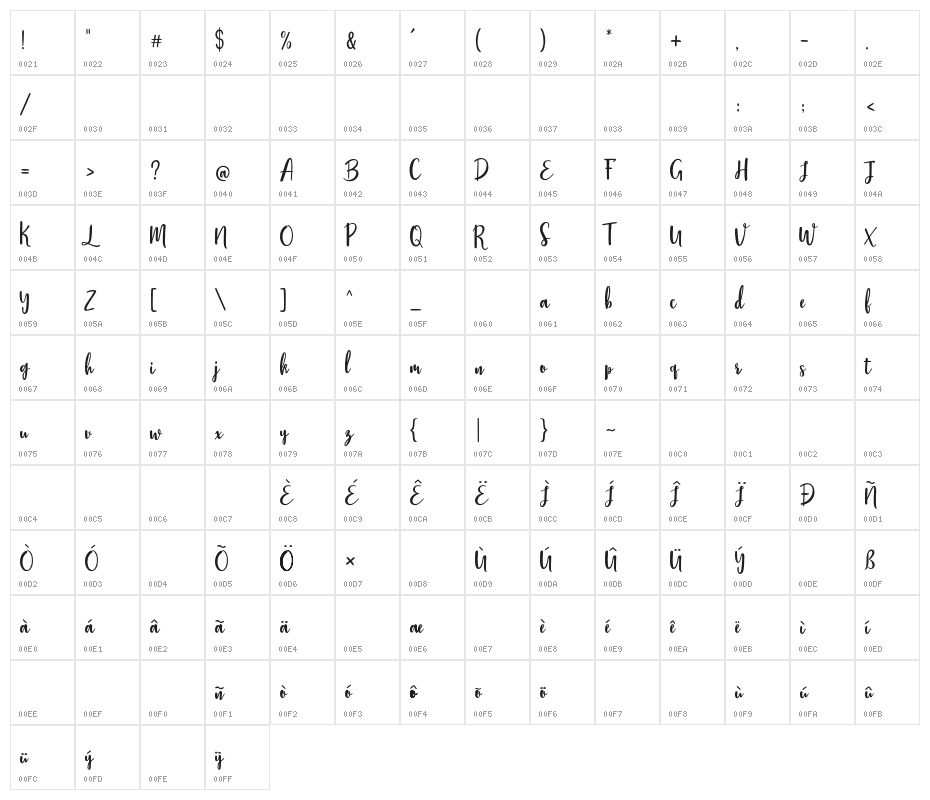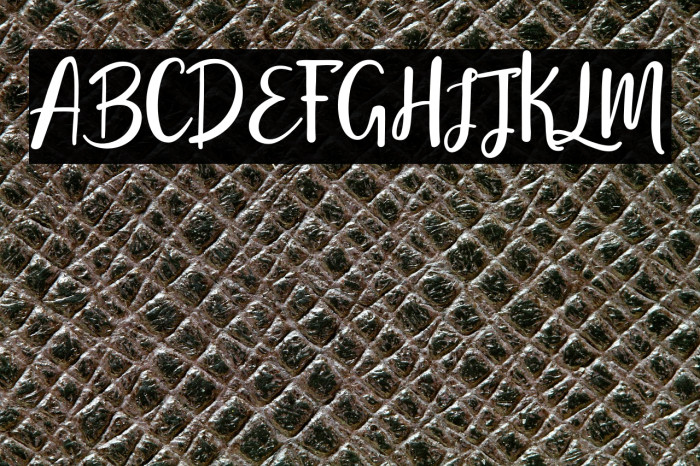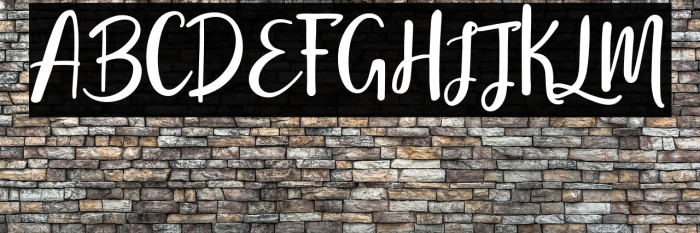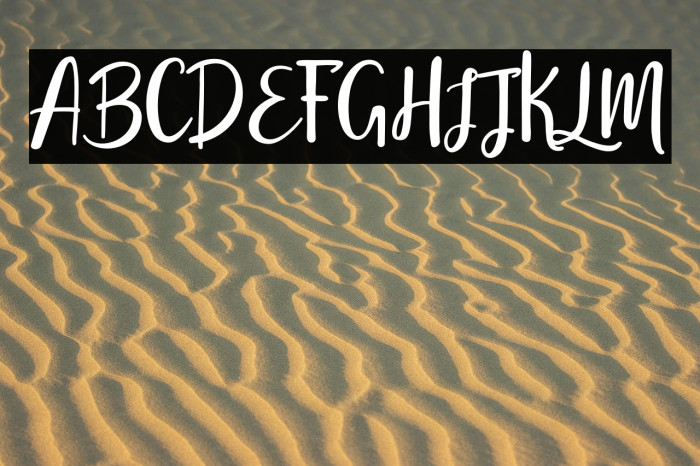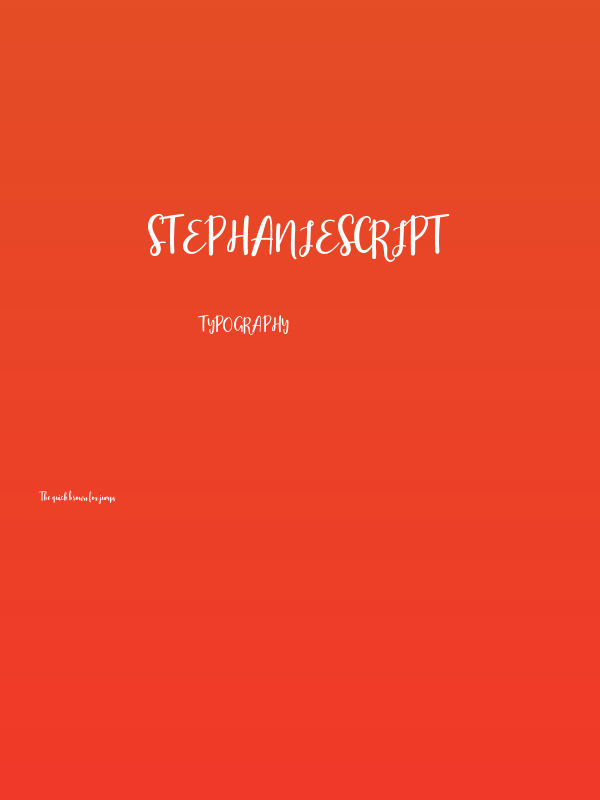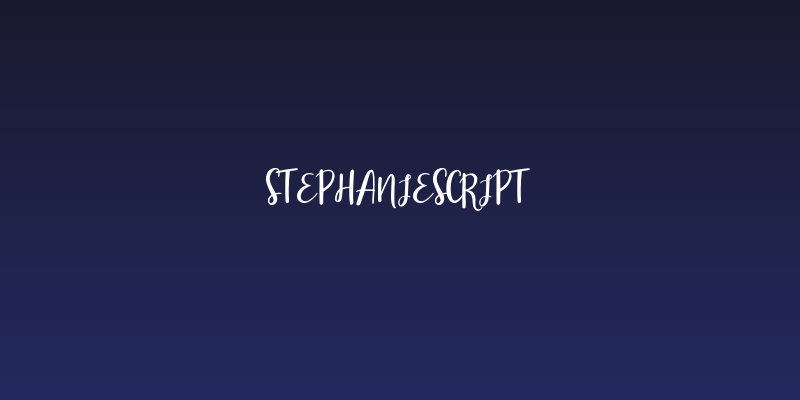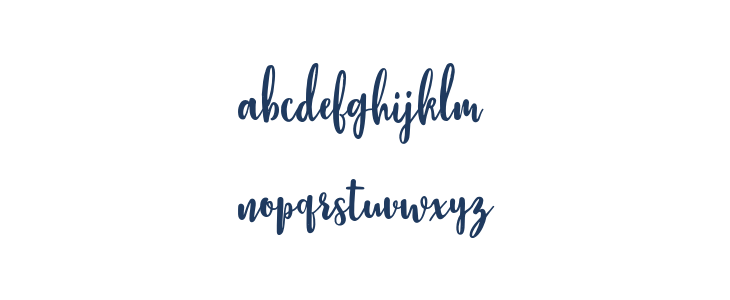
StephanieScript Font
StephanieScript Description
This font features a lively and flowing script style, characterized by its elegant and cursive letterforms. The uppercase letters are bold and slightly slanted, with a playful yet sophisticated appearance. The lowercase letters maintain a consistent flow, with smooth curves and loops that enhance its handwritten aesthetic. The font includes a range of special characters, adding versatility to its use. Its overall design exudes a sense of creativity and personal touch, making it ideal for projects that require a personal or artistic flair.
Proposed ProjectsIdeal for wedding invitations, greeting cards, branding, and personal projects that require a touch of elegance and creativity.